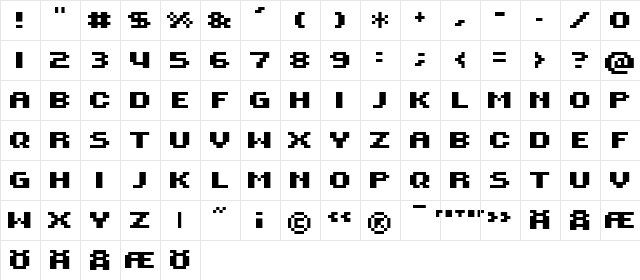
ROTORcap Extended Bold Regular
Design Context for ROTORcap Extended Bold Typeface
ROTORcap Extended Bold is a composed and adaptable typeface that performs quietly and consistently across a wide range of design contexts. The heavy weight commands attention and anchors typographic hierarchies.